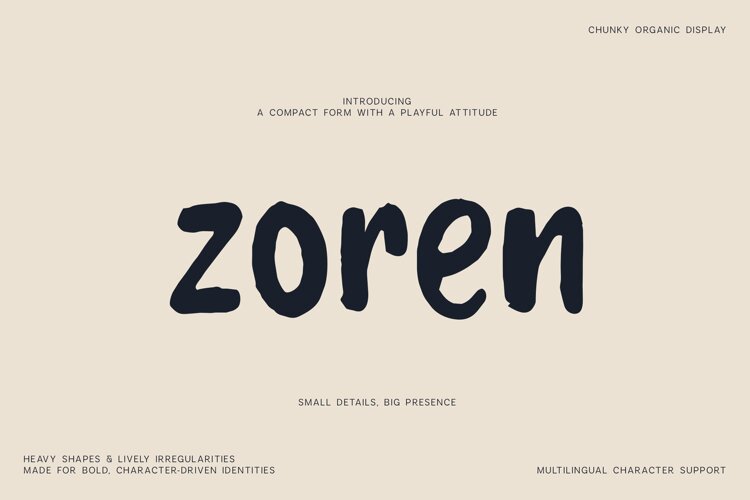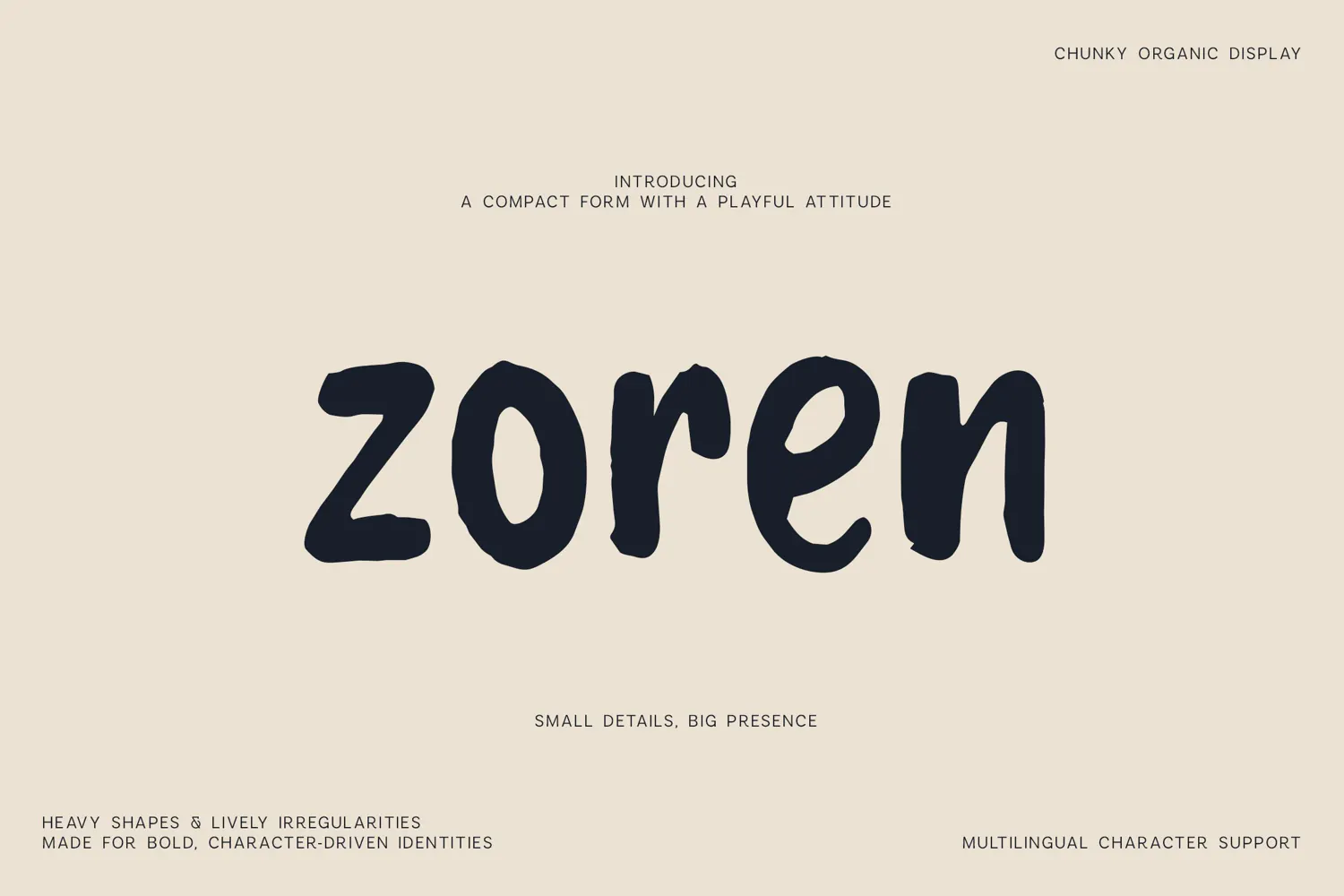
Zoren Chunky Organic Display Font
Zoren is a bold and playful organic display font with chunky handcrafted letterforms, soft irregular shapes, and a warm contemporary personality. Designed to feel expressive and human, it combines strong visual impact with a relaxed, approachable character.
Its compact proportions and natural imperfections make Zoren especially effective for logos, branding, packaging, posters, editorial headlines, product labels, social media graphics, advertising, book covers, invitations, stationery, restaurant branding, kids projects, creative campaigns, and other designs that need a distinctive handmade touch.
The font features a lively hand-drawn rhythm while keeping the letterforms clear and highly usable. Its bold shapes work especially well at larger sizes, making Zoren a strong choice for attention-grabbing headlines and memorable identity design.
Zoren also includes extensive multilingual Latin support, accented characters, numerals, punctuation, symbols, and currency signs, allowing it to work confidently across a wide range of international projects.